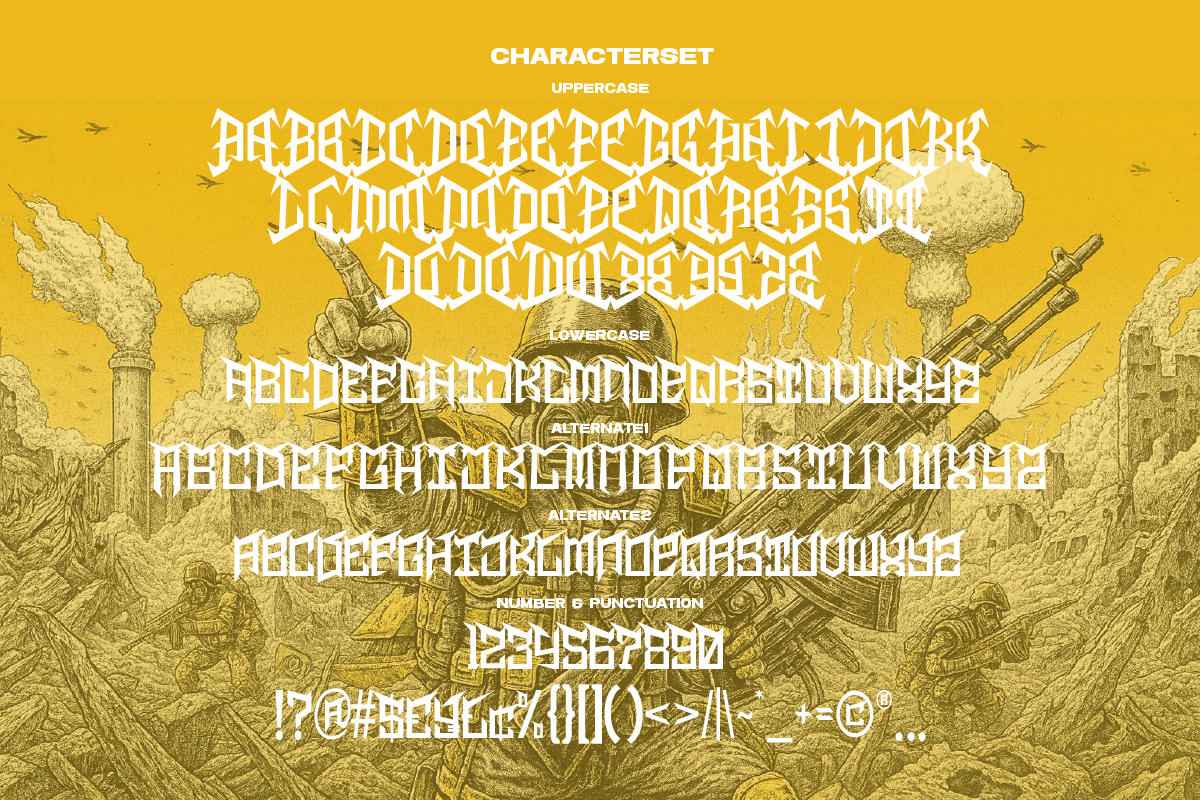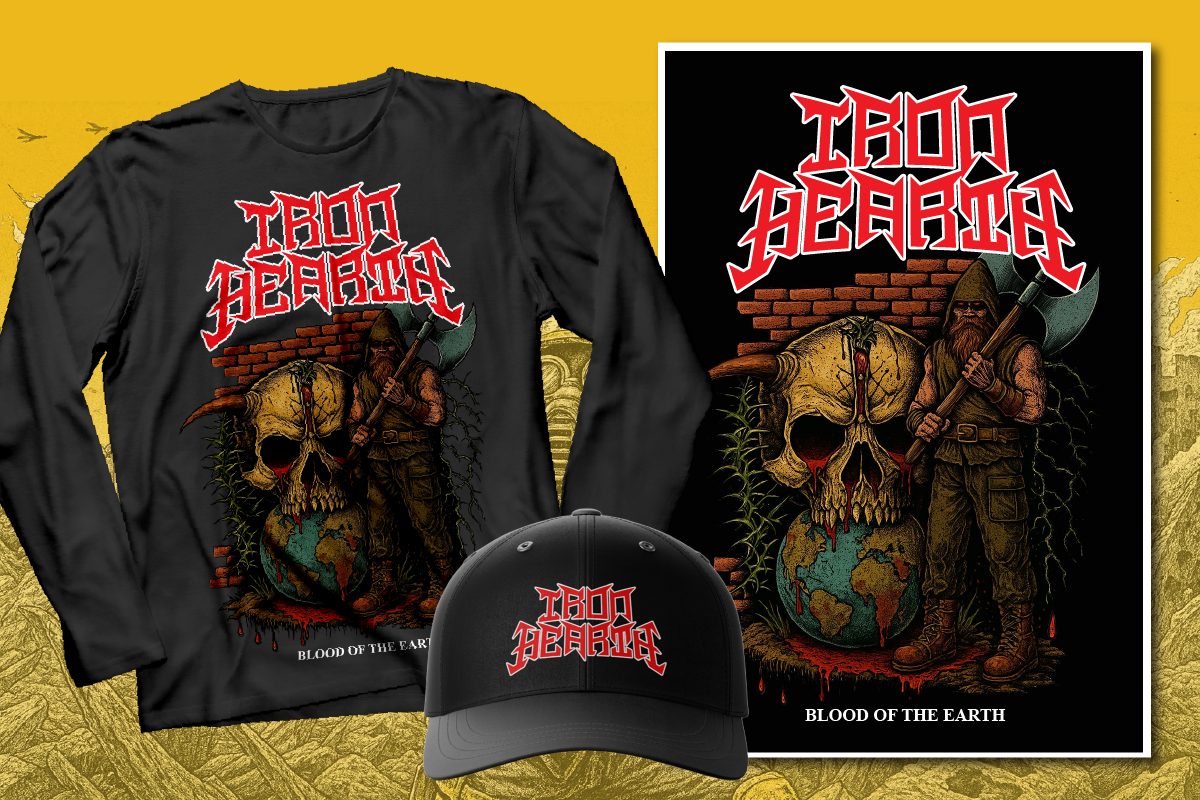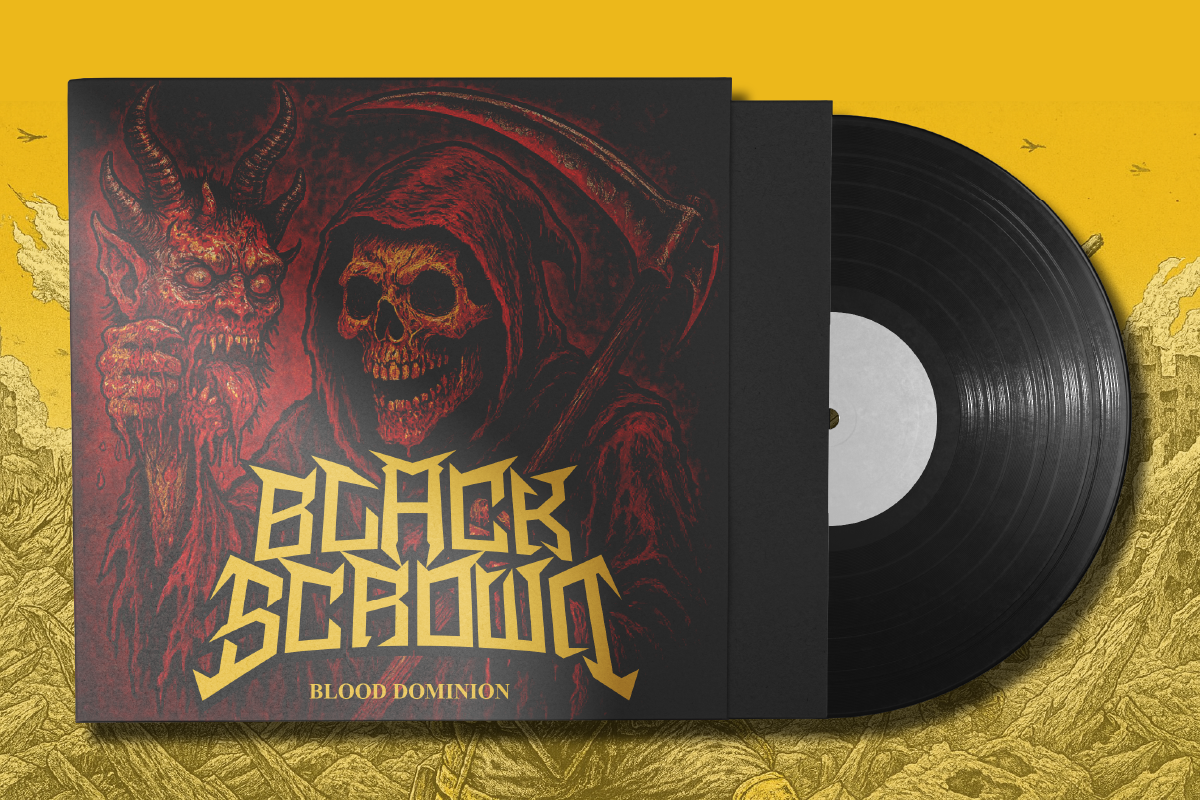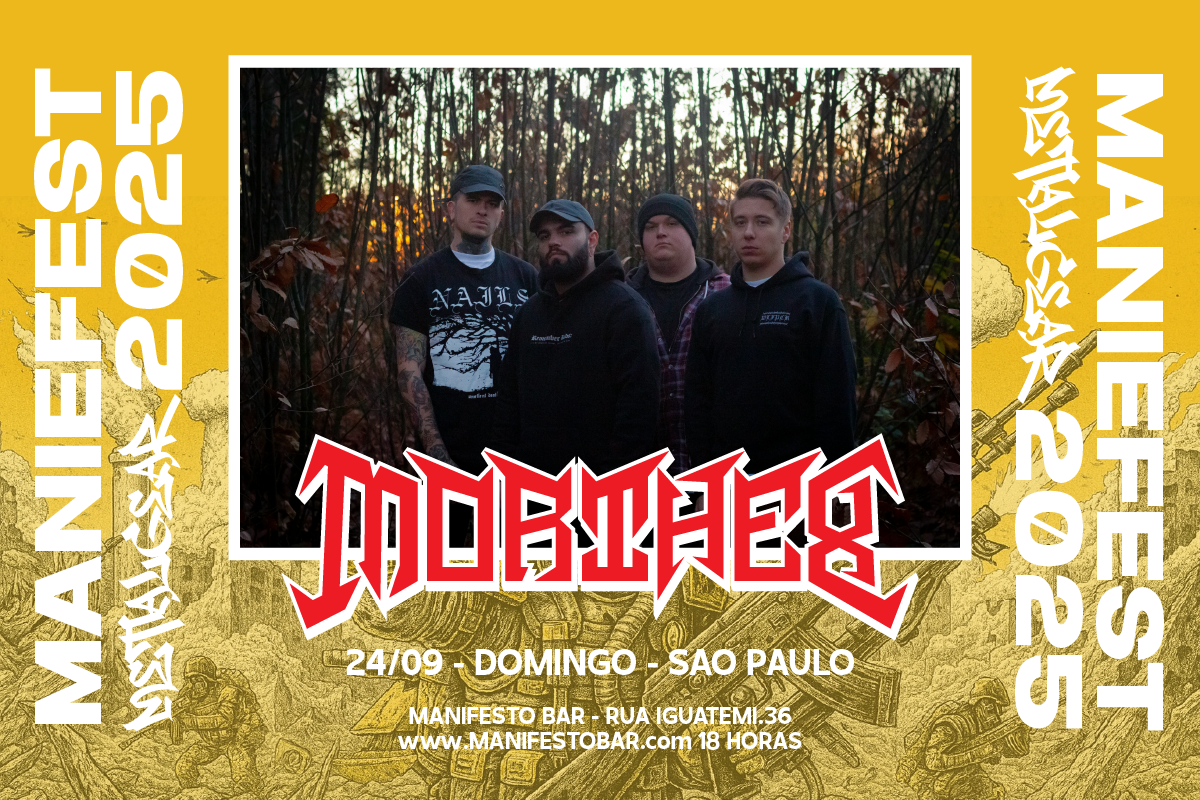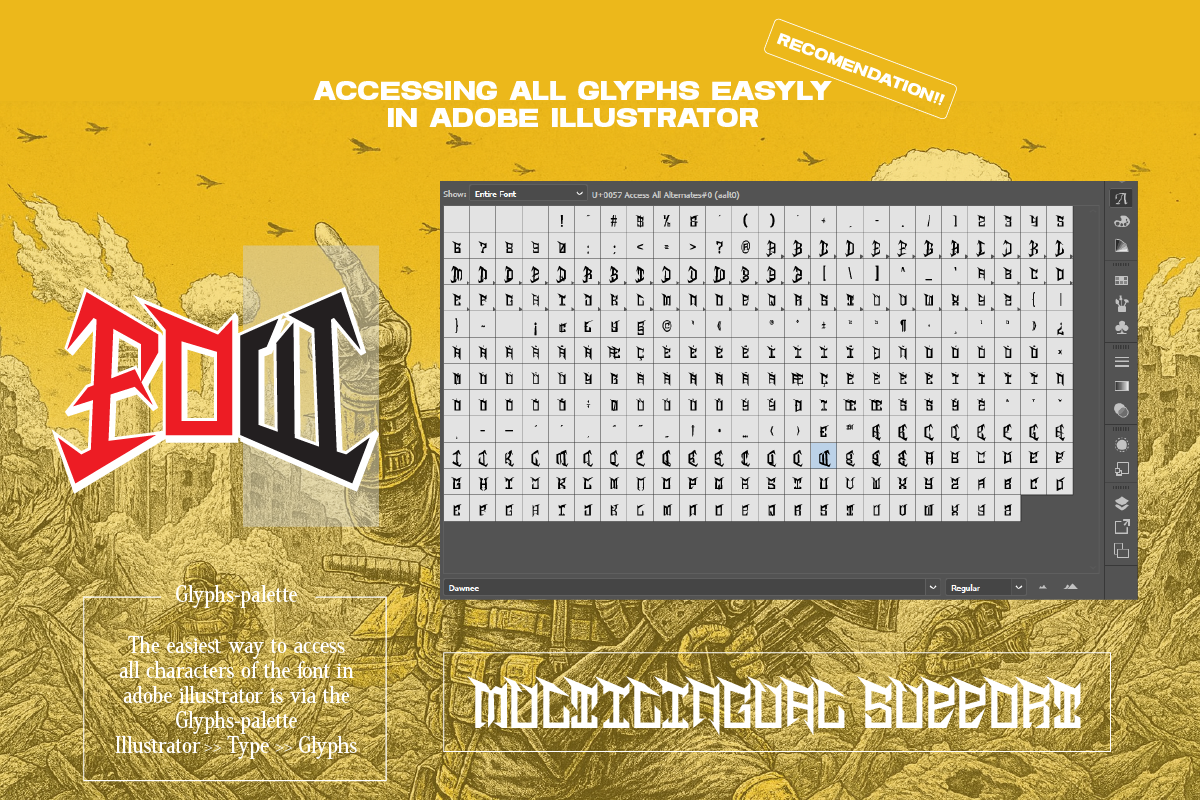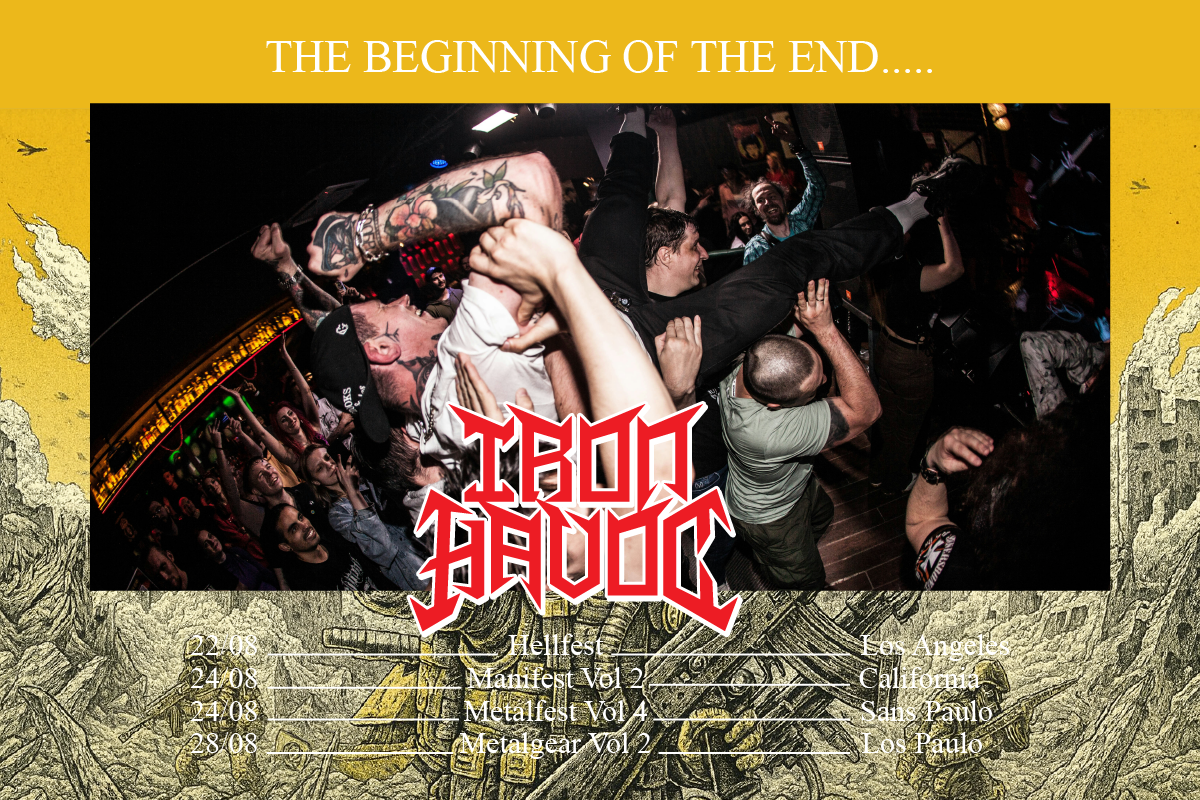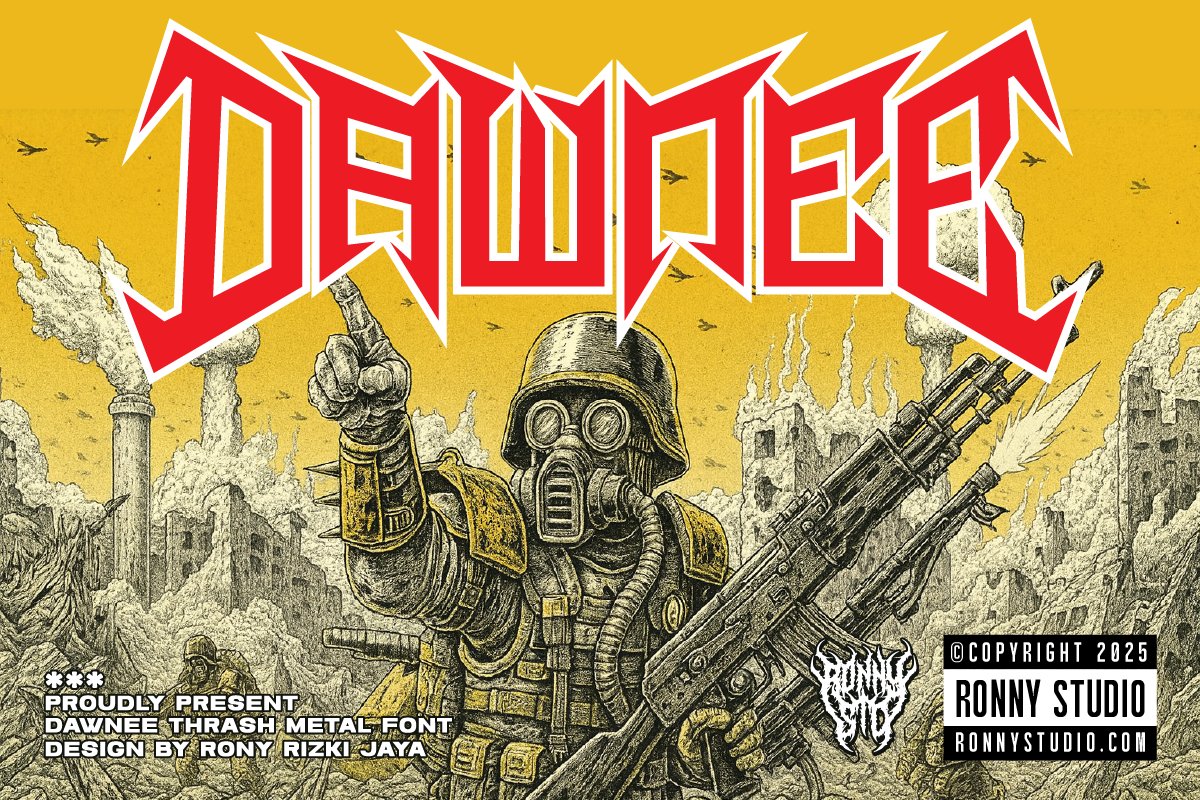
Dawnee Thrash Metal Display Font
🎨 Introducing: Dawnee – Thrash Metal Display Font Unleash raw power into your designs with Dawnee, a bold thrash metal display font packed with sharp edges, aggressive strokes, and heavy underground energy. Inspired by metal band logos, war-themed artwork, and apocalyptic design, Dawnee is perfect for projects that demand an intense and rebellious look.
With its extreme letterforms and unique style, Dawnee creates a striking visual impact that works seamlessly across music branding, posters, and merchandise. Whether you’re designing a metal band logo, gig poster, album cover, or streetwear graphic, Dawnee delivers the ultimate hardcore vibe.
✨ Font Features:
- Authentic Thrash Metal Display Style
- Sharp, aggressive characters with unique shapes
- Uppercase, lowercase, numbers, Alternate, symbols & punctuation
🔥 Perfect For:
- Metal & Punk Band Logos
- Gig posters, flyers & event promotions
- Album covers & music merchandise
- Streetwear designs & apparel branding
- Graffiti, underground artwork & stickers
- Apocalyptic / war-inspired graphic projects